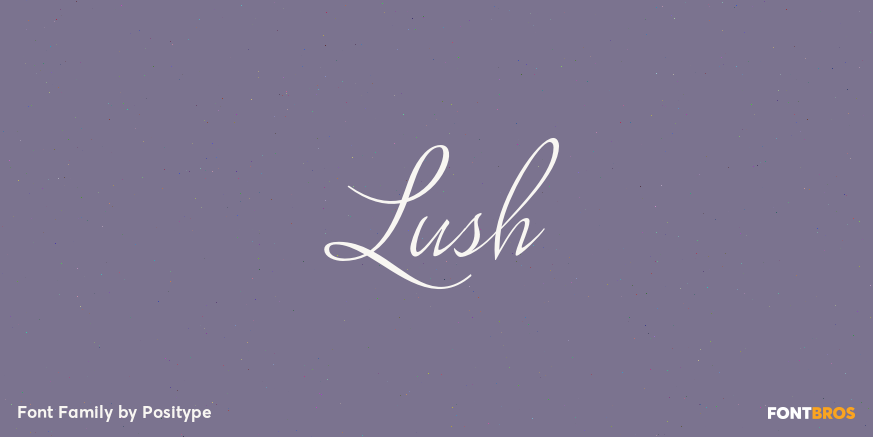
Lush
About Lush
Lush was a formal script until it had a few too many drinks and, as a result, loosened up a little bit. Harkening back to the handlettering of the 40s and 50s, Lush has evolved into a casual, but well-dressed script that maintains a rather aggressive…